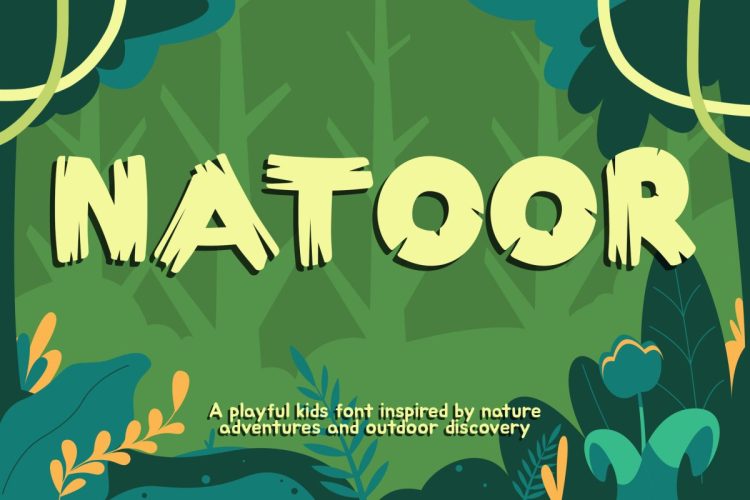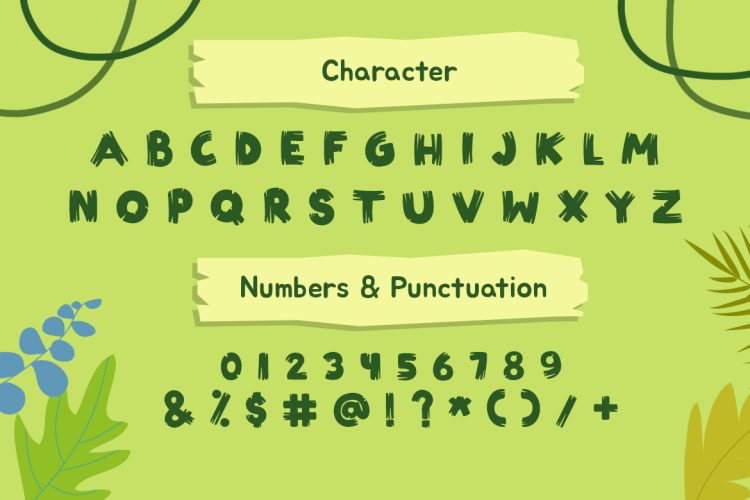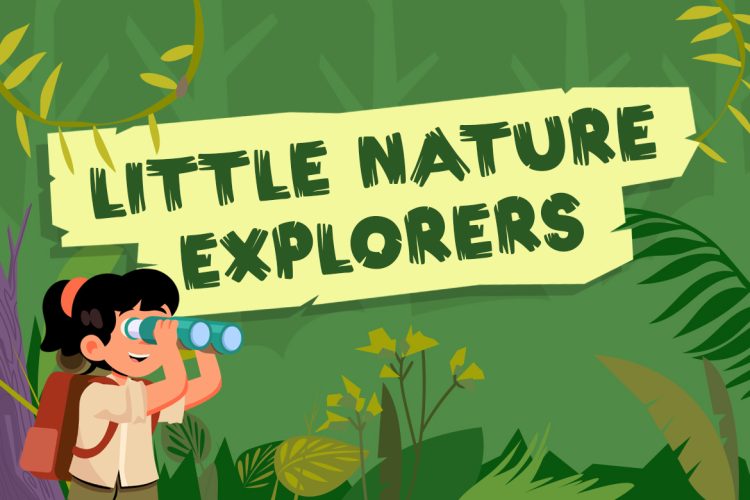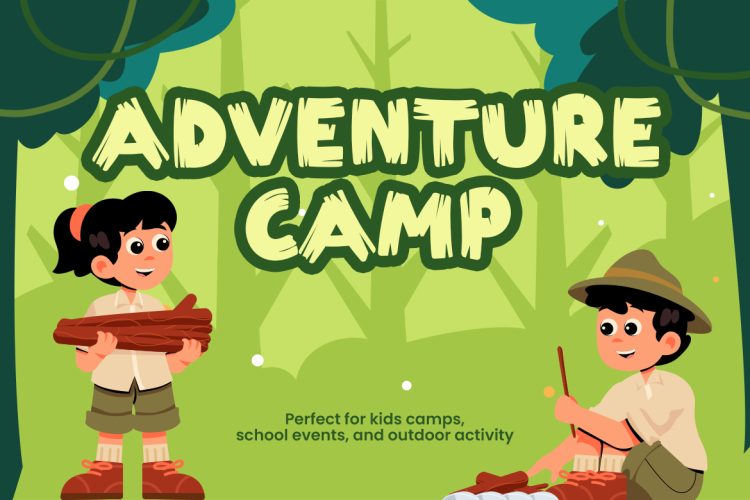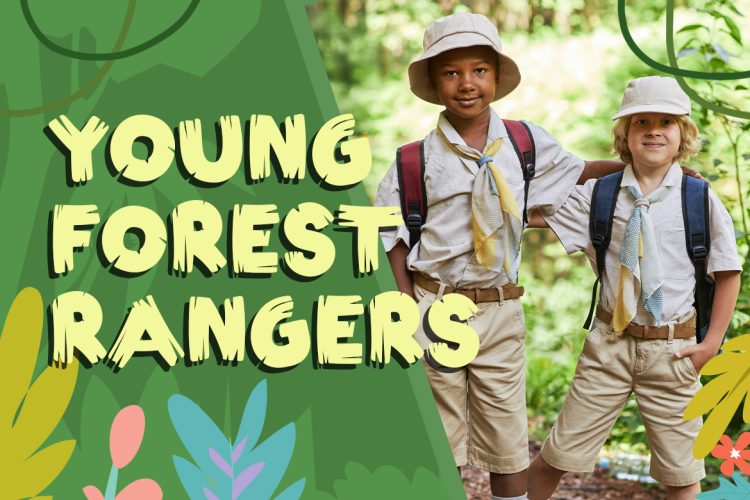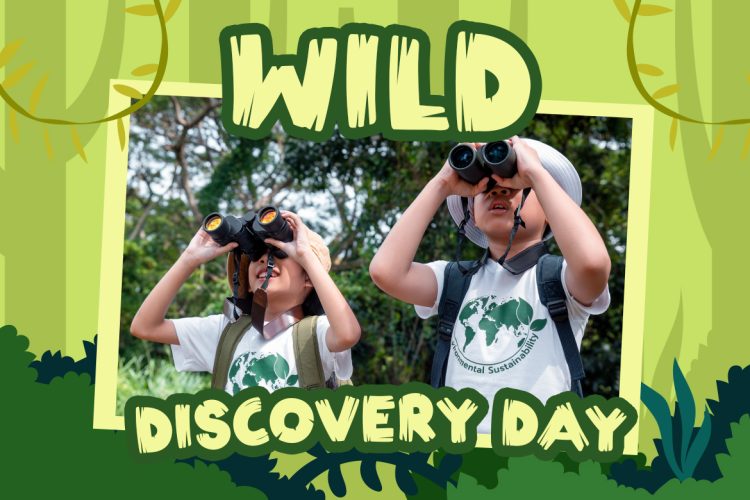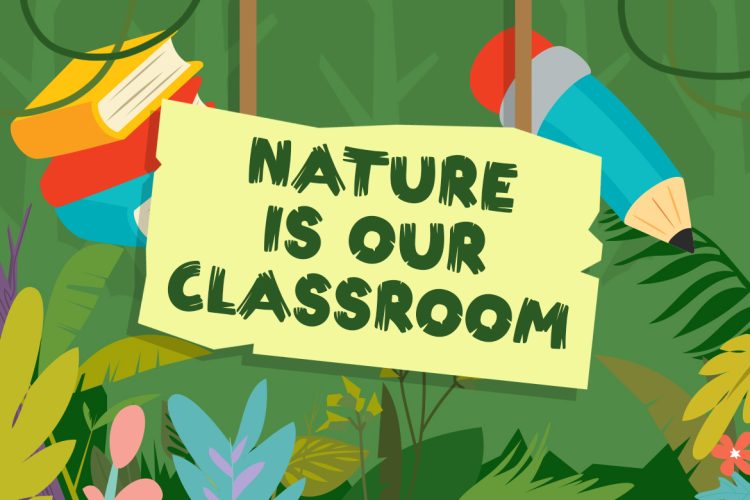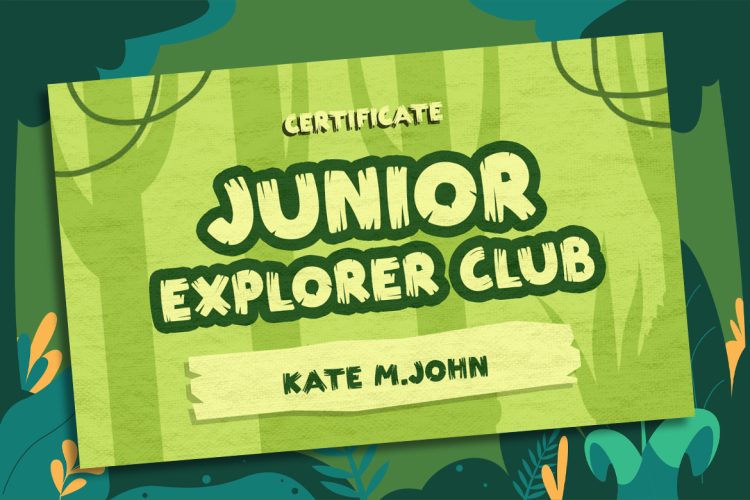
NATOOR โ Wild Adventure Kids Font
Kids Font NATOOR is a playful adventure-inspired typeface designed to capture the excitement of nature and outdoor exploration. At first glance, its bold shapes and slightly rugged edges immediately create a lively jungle and forest vibe. Moreover, the organic curves and hand-crafted style give the letters a natural, adventurous personality. As a result, every word feels energetic, fun, and full of discovery. In addition, the font maintains clear readability, so it works beautifully for both headlines and creative titles. Because of this balance between playful aesthetics and usability, NATOOR easily brings storytelling, exploration, and imagination into kids-focused designs.
Kids Font NATOOR is a cheerful display font that celebrates the spirit of young explorers and outdoor adventures. Not only do the chunky letterforms look bold and expressive, but they also pair perfectly with forest illustrations, wildlife themes, and colorful kids graphics. Furthermore, the playful rhythm of the letters helps create designs that feel dynamic and exciting. Therefore, whether you are designing posters, books, or digital content, NATOOR adds a natural and adventurous touch. Ultimately, it transforms simple text into eye-catching visuals that spark curiosity and fun.
Because of its adventurous personality and friendly style, Kids Font NATOOR works wonderfully for many creative projects, such as:
Kids outdoor event posters and adventure camps
Childrenโs books about nature and exploration
Educational materials about wildlife and the environment
Kids festivals, activity posters, and school events
Toy packaging and nature-themed kids branding
Explorer clubs, field trip programs, and learning activities